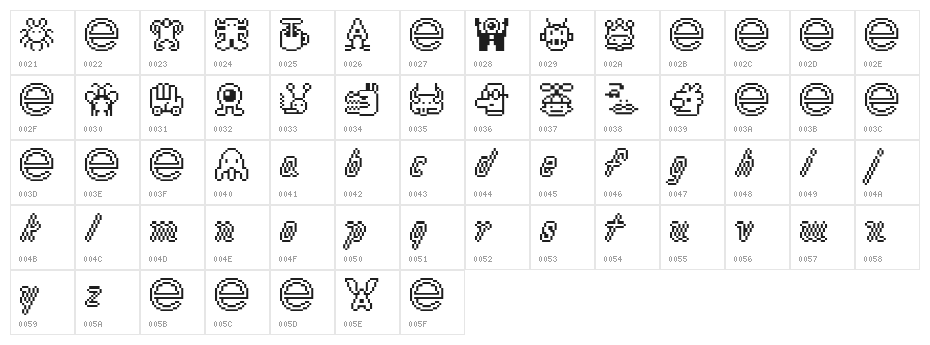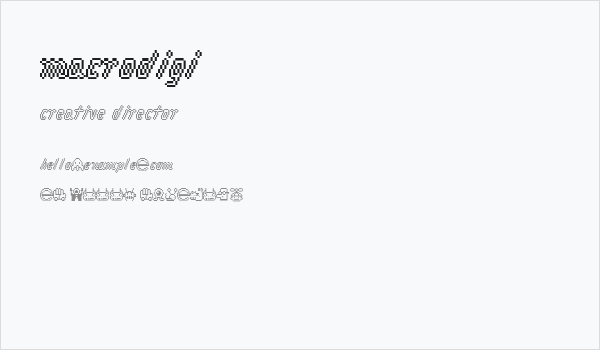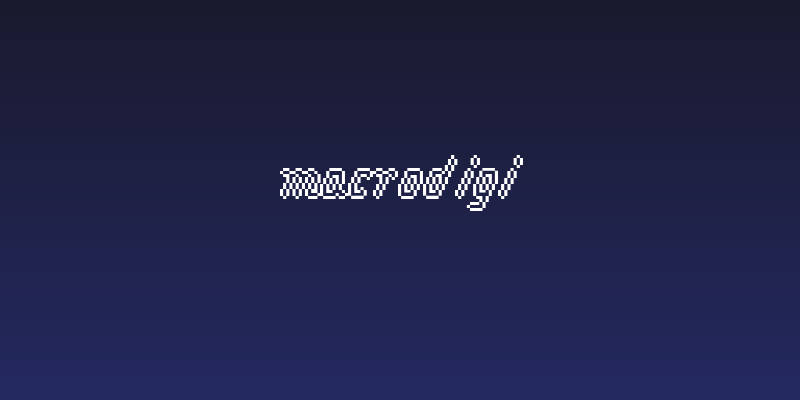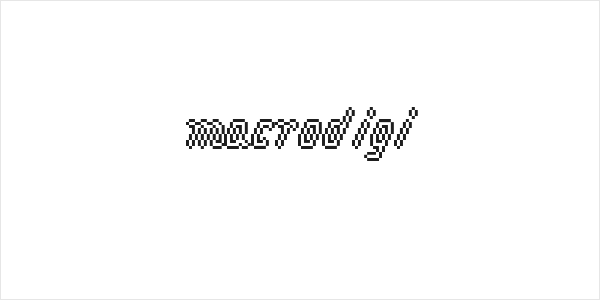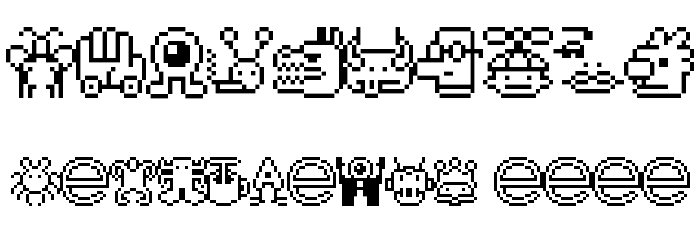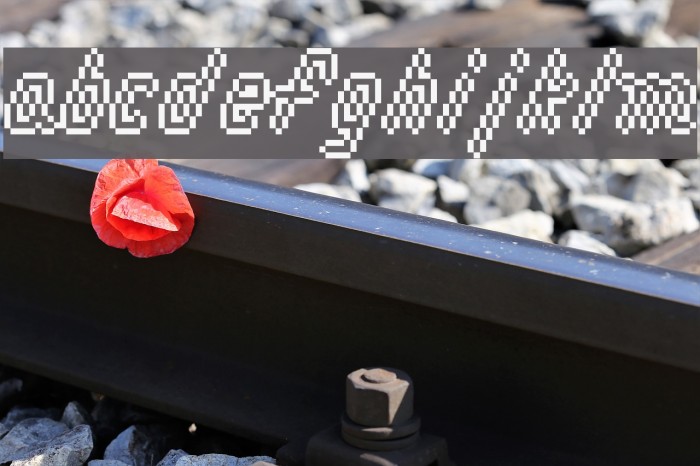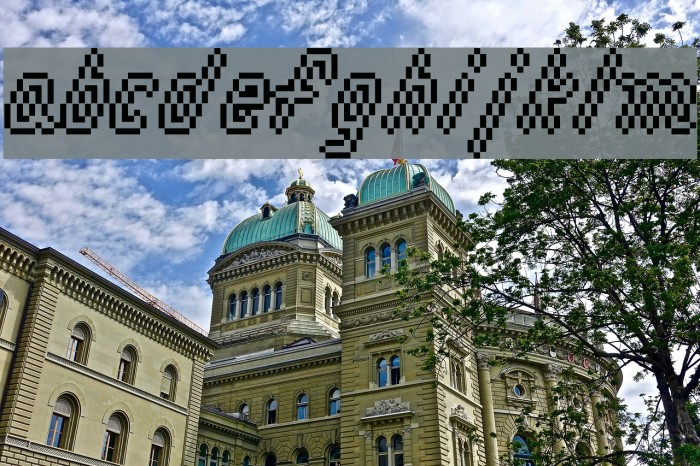
macrodigi Font
macrodigi Description
This font is a playful and pixelated design, reminiscent of early digital graphics and video games. Each character is constructed with a blocky, pixelated style, giving it a retro and nostalgic feel. The uppercase and lowercase letters maintain a consistent pixelated structure, while the numbers and special characters are creatively designed with unique pixel art elements. The font includes whimsical and imaginative symbols, adding a touch of fun and creativity. Its distinct style makes it stand out, perfect for projects that aim to capture a vintage digital aesthetic.
| Use Case | Logos, Headlines, Digital Art |
| Proposed Projects | Ideal for video game design, retro-themed graphics, digital art projects, and playful branding. |